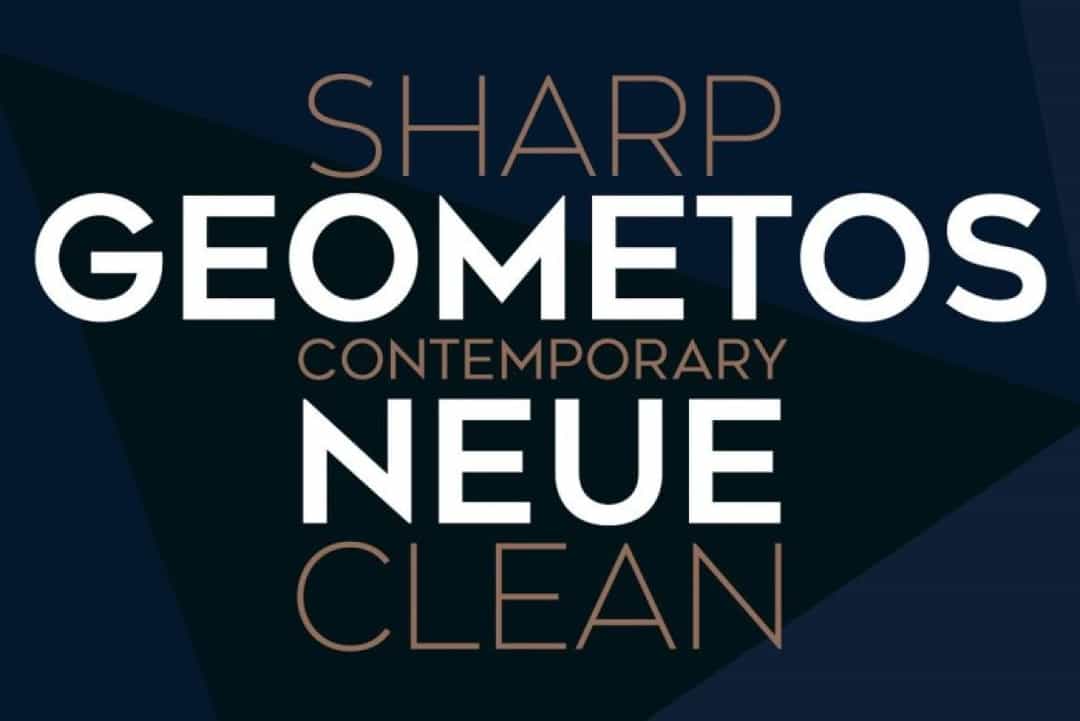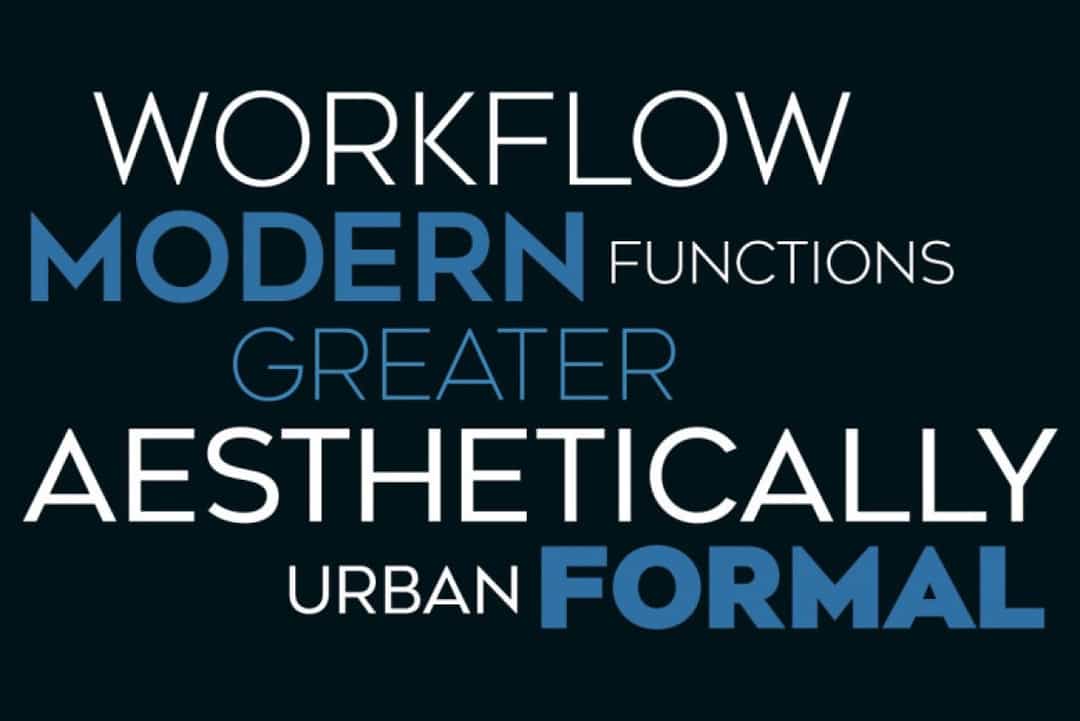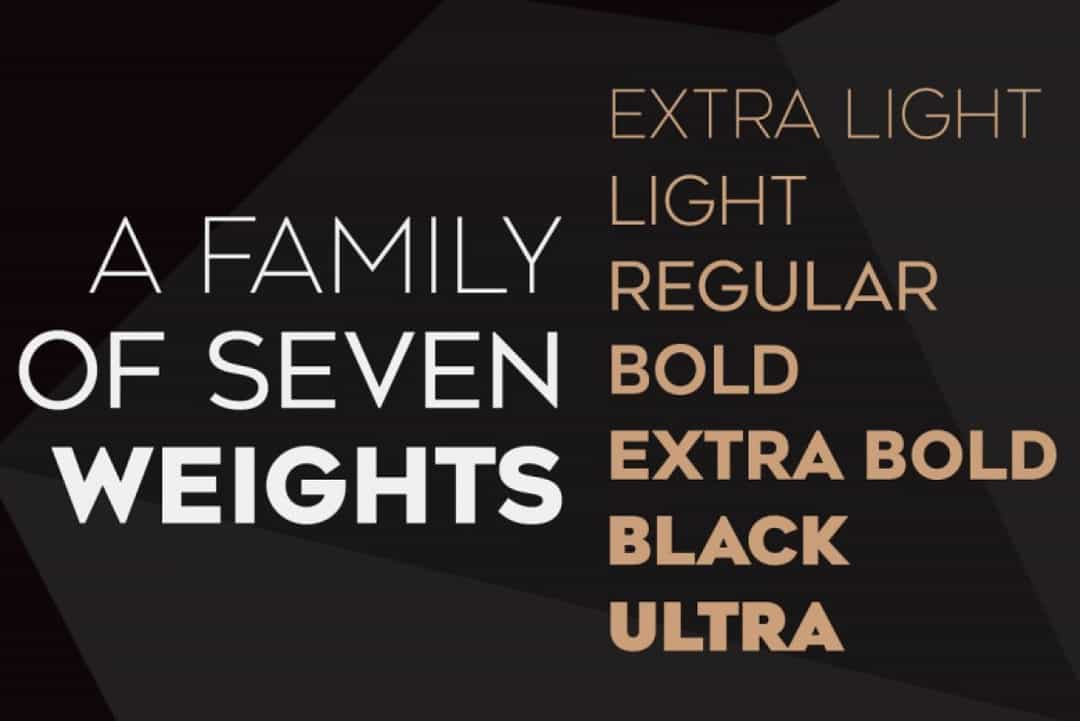
Geometos Neue Font Family is an organic sans-serif font available in seven weights. Ideal for headlines branding, headings, packaging and posters as well as logos titles and subtitles, Geometos Neue has an elegant yet sleek appearance which makes it suitable for headlines branding headlines posters as well as logos titles titles and subtitles.